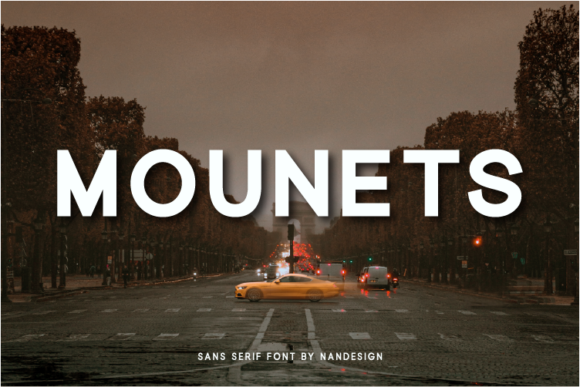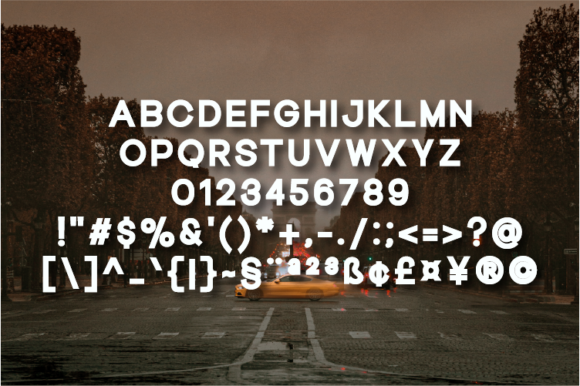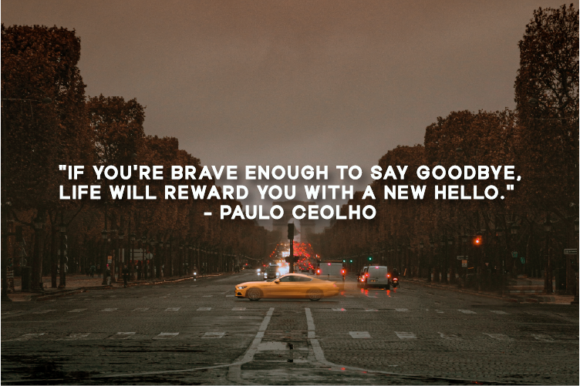
Mounets
About Mounets Font
Mounets is a simple lettered sans serif font. Whether you’re using it for crafting, digital designing, presentations or greeting cards making, it’s perfect!